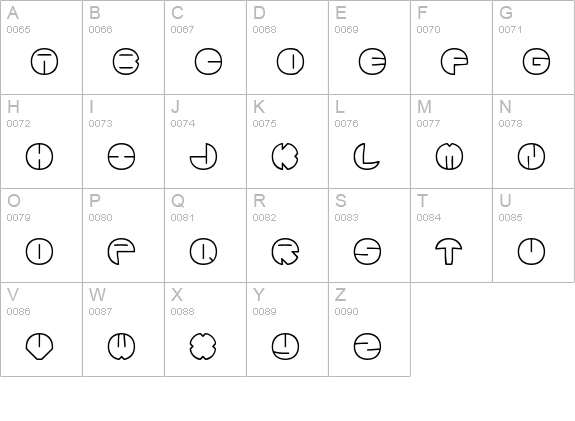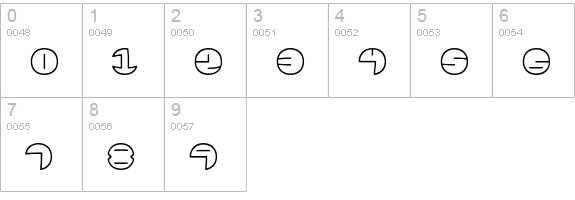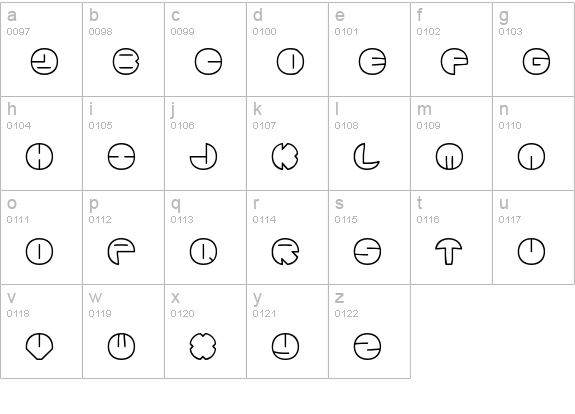
Zurklez Outline BRK Font Details
Zurklez Outline BRK font is a modern and stylish typeface that is perfect for adding an artistic touch to your designs. With its sleek and edgy outline style, this font is ideal for creating eye-catching headlines, logos, posters, and more. The unique letterforms of Zurklez Outline BRK font make it stand out and grab attention, making it a great choice for projects that require a bold and contemporary look. The best part about Zurklez Outline BRK font is that it is available for free! You can easily download this font from FontsMarket.com and start using it in your design projects right away. Whether you are a graphic designer, artist, or just someone looking to spice up your creations, Zurklez Outline BRK font is a versatile and dynamic option that will elevate your work to the next level. Get your hands on this sleek and stylish font today and let your creativity soar!